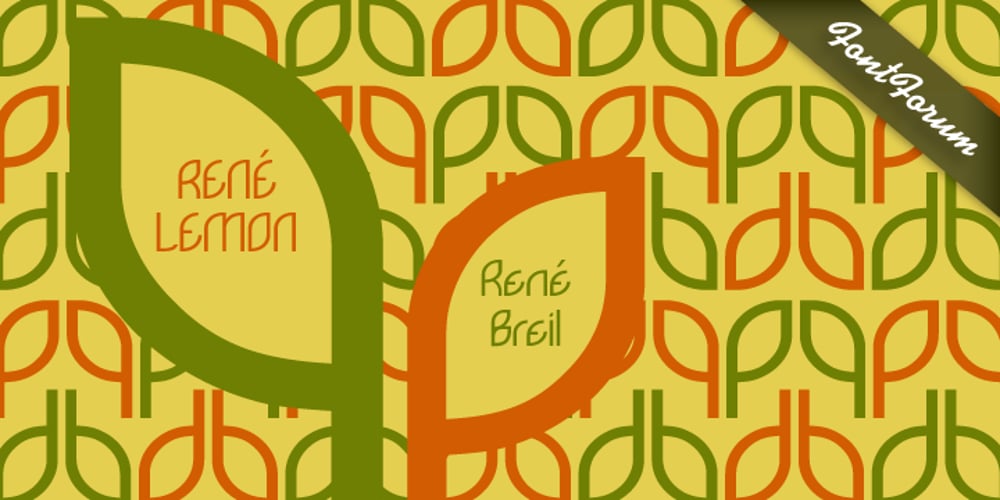
Renelemon Font Family was designed by René Breil and published by URW Type Foundry. Renelemon contains 1 styles and family package options. RenéLemon is a design where the basic design idea is part of its name – Lemon. Every glyph is derived from the form of a lemon, splashing and dashing – a typographic vitamin pill!